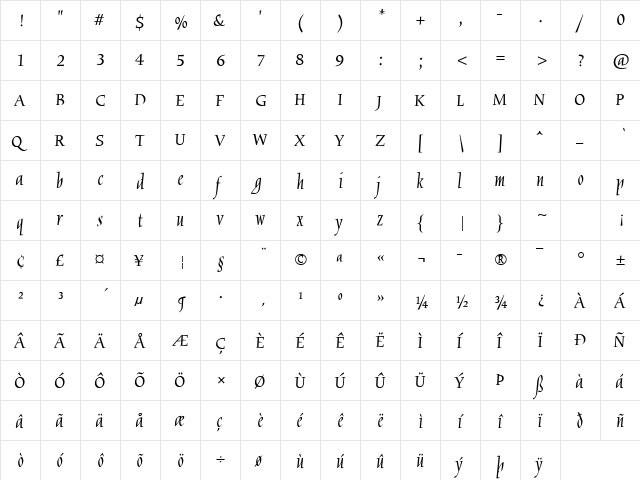
Mauritius Becker Regular
Design Context for Mauritius Becker Typeface
Mauritius Becker takes a measured approach to typography — its balanced proportions and neutral character make it a reliable workhorse for both digital and print work.